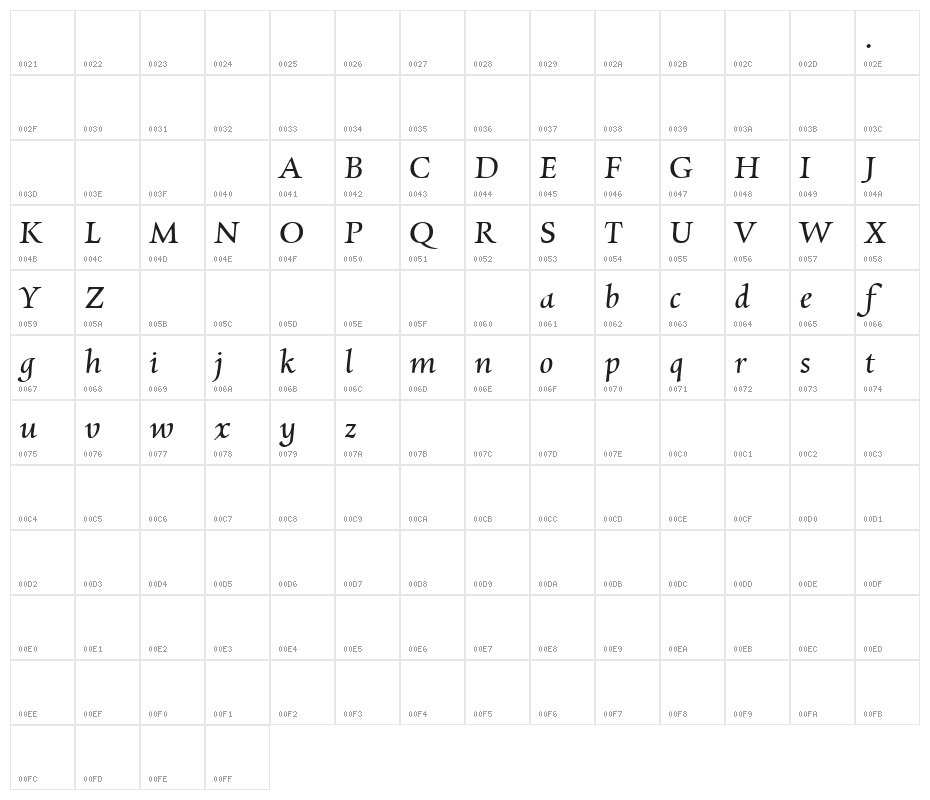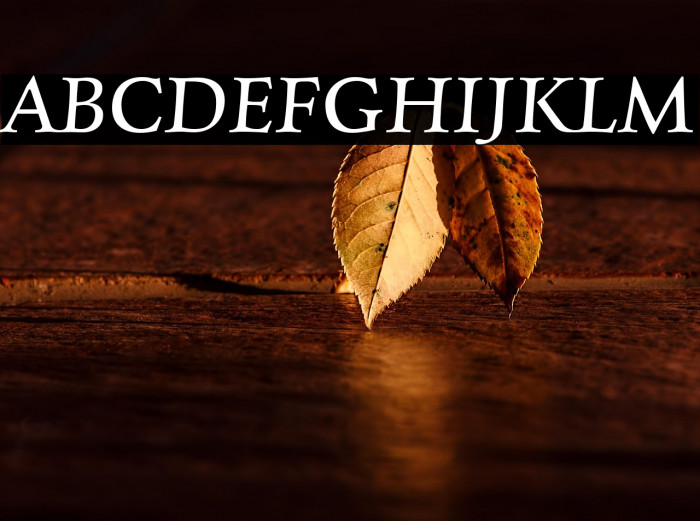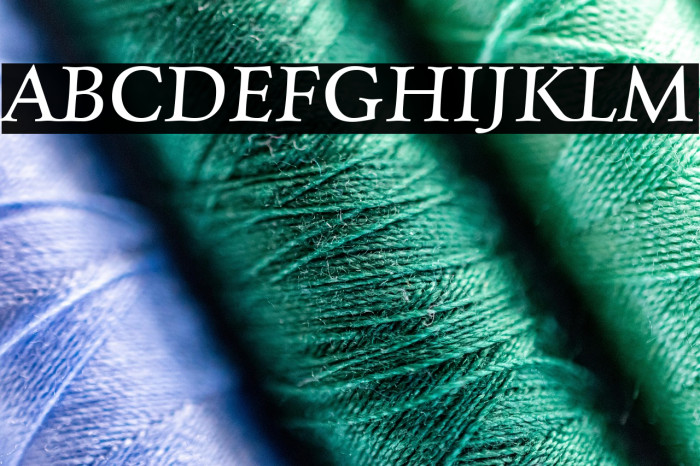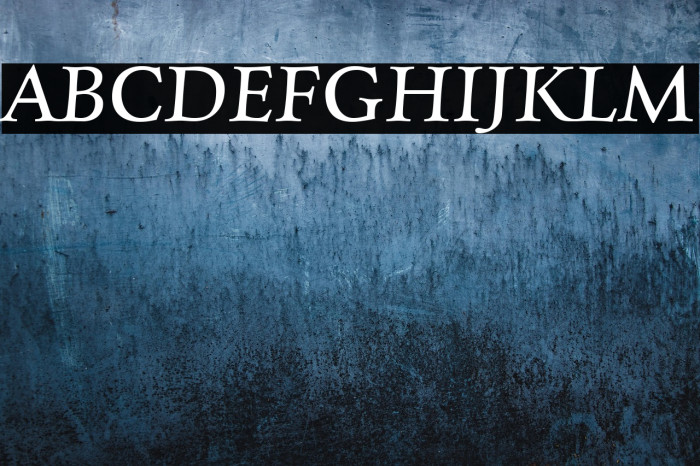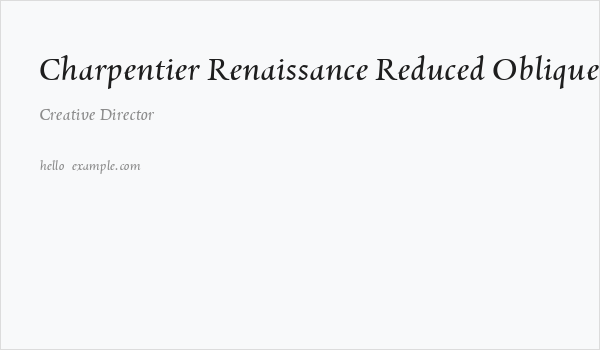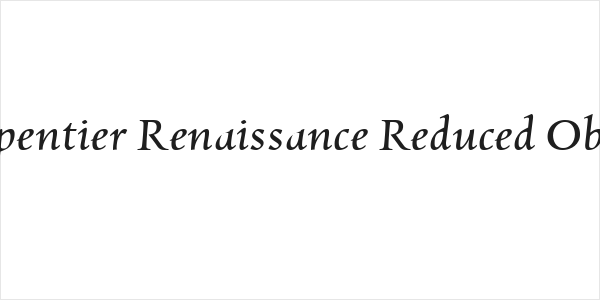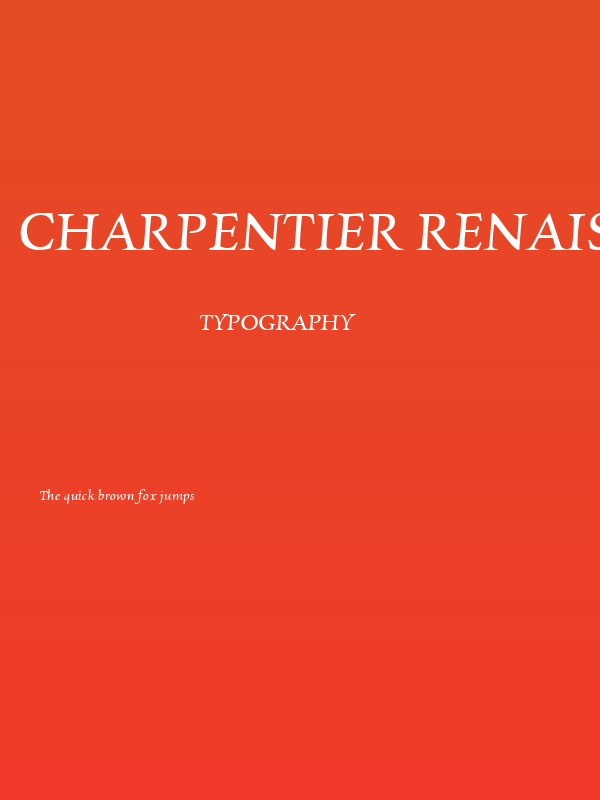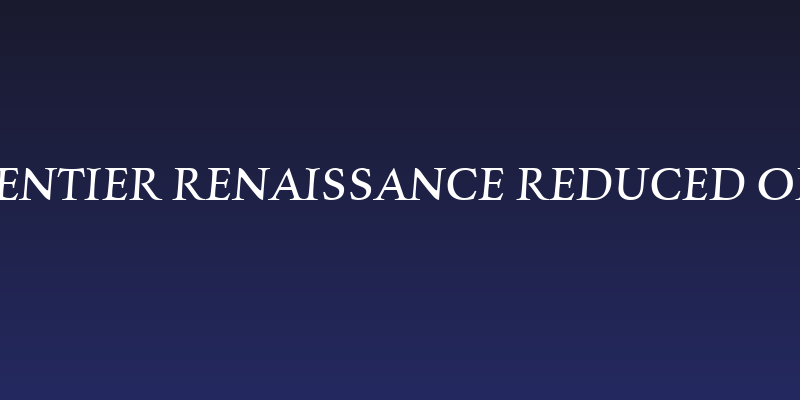
Charpentier Renaissance Reduced Oblique Font
Charpentier Renaissance Reduced Oblique Description
This font exudes a classic and elegant feel, reminiscent of Renaissance calligraphy. The characters are slightly oblique, giving them a dynamic and flowing appearance. The serifs are pronounced yet refined, adding a touch of sophistication. The uppercase letters are stately and well-proportioned, while the lowercase letters maintain a graceful continuity. The overall design is balanced, with moderate contrast between thick and thin strokes, enhancing readability while maintaining an artistic flair. This font is ideal for projects that require a historical or formal touch, such as invitations, certificates, or editorial design.
| Proposed Projects | Ideal for wedding invitations, historical documents, formal certificates, and editorial layouts. |